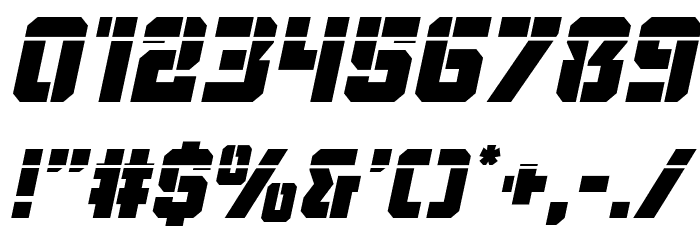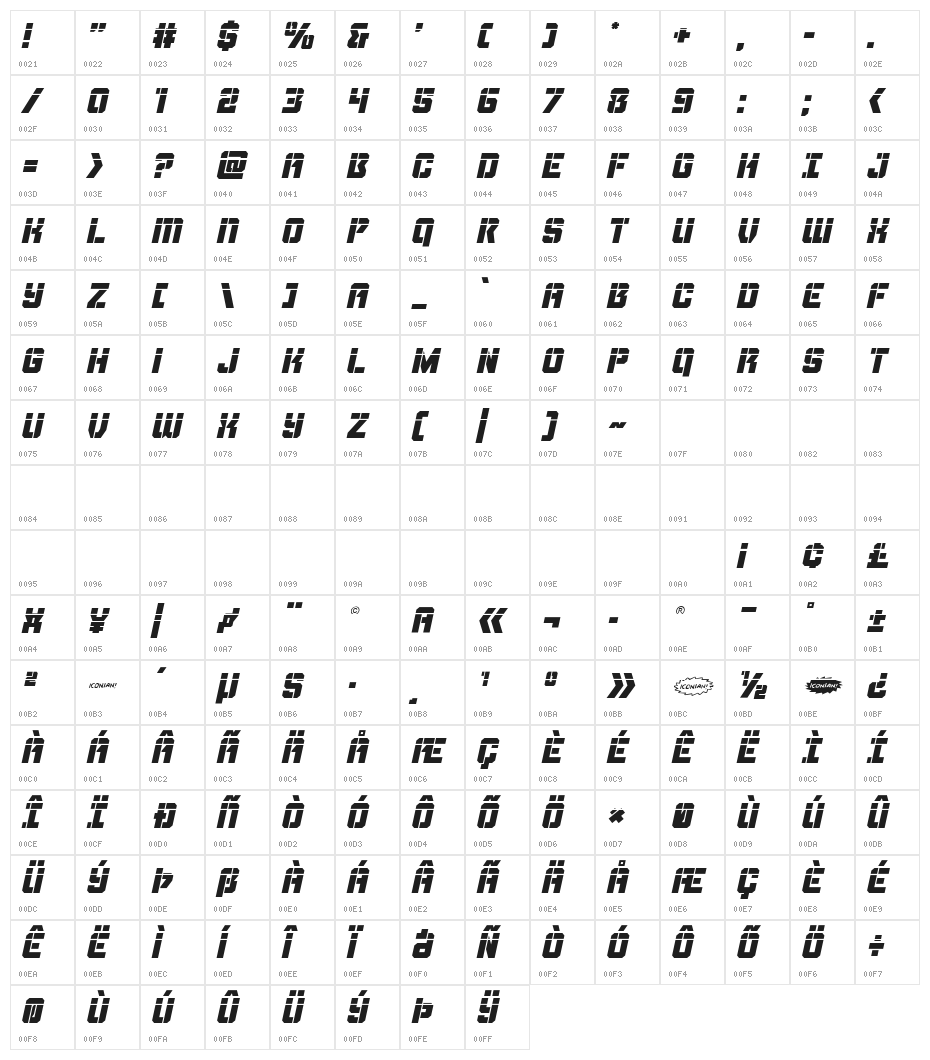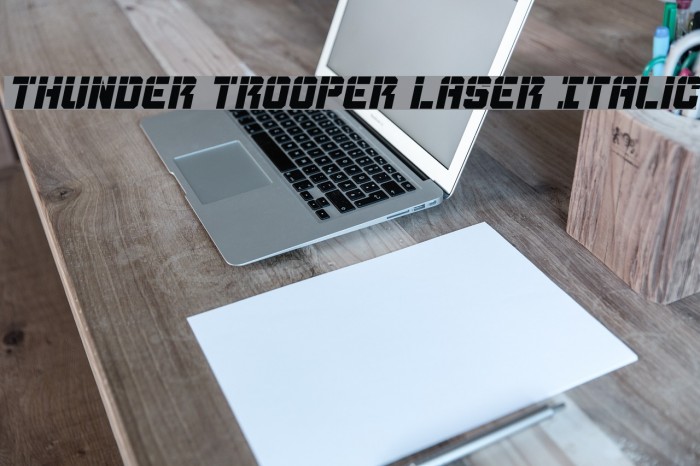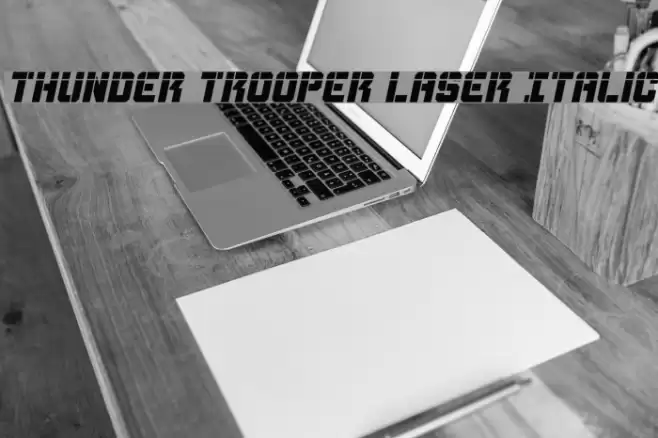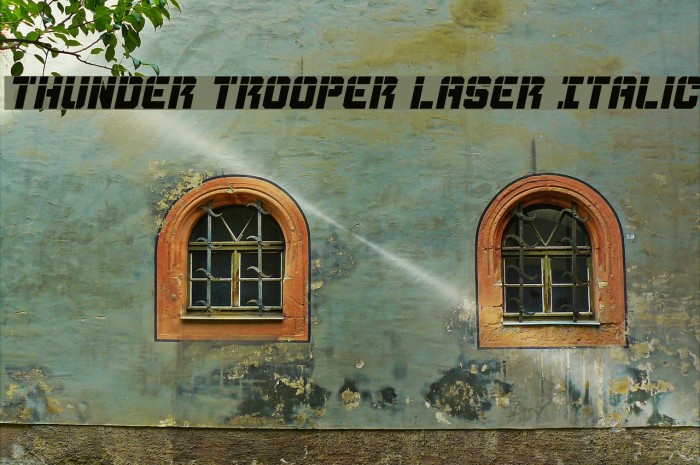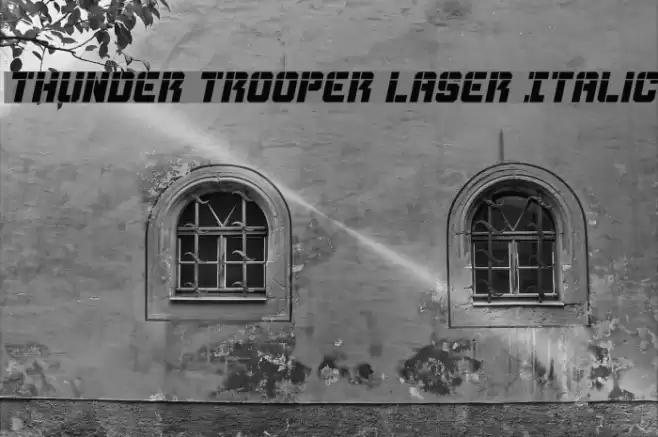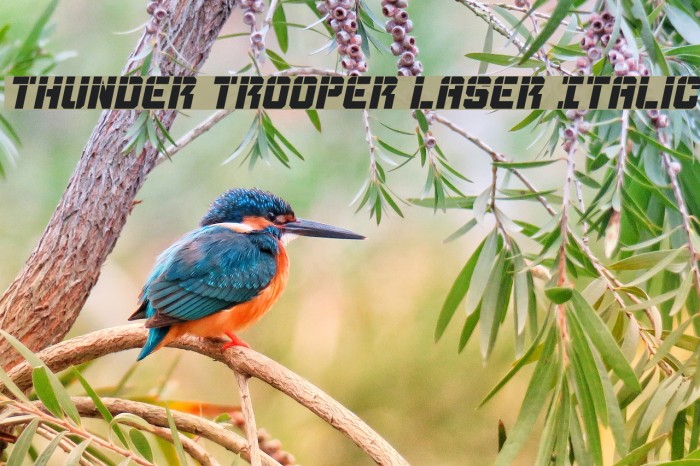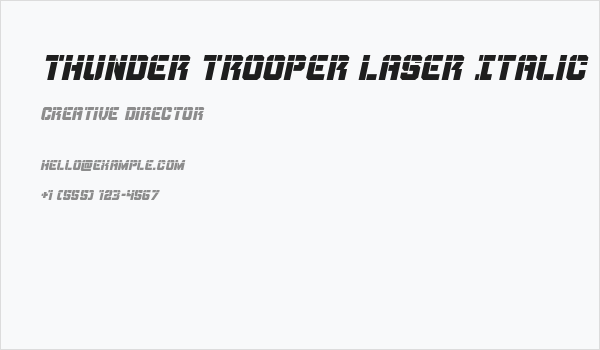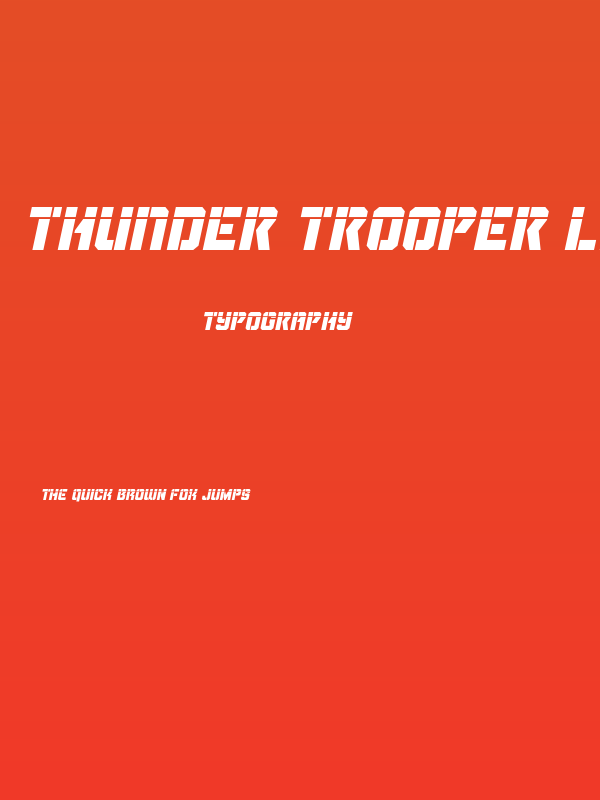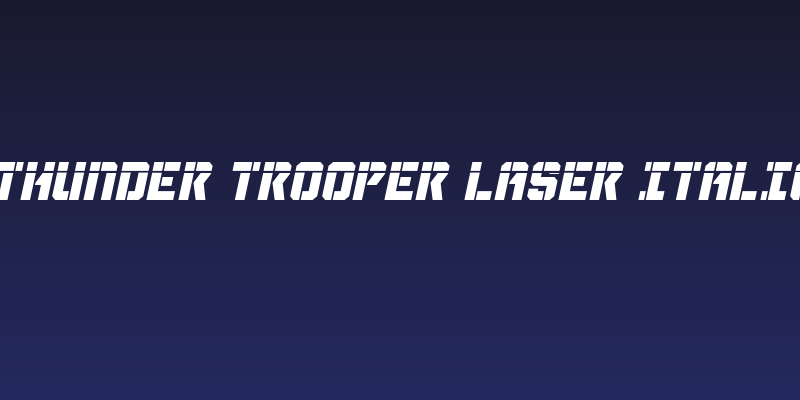
Thunder Trooper Laser Italic Font
This font features a bold, futuristic design with a strong geometric structure. The characters are italicized, giving a sense of motion and speed. Each letter is crafted with sharp angles and a blocky appearance, reminiscent of sci-fi and tech themes. The uppercase and lowercase letters maintain a consistent style, with a uniform width and height that ensures readability. The numbers and special characters follow the same design principles, making them easily recognizable. The overall aesthetic is modern and dynamic, suitable for projects that require a bold and impactful visual presence.
| Proposed Projects | Ideal for video game titles, tech branding, sci-fi movie posters, and futuristic event flyers. |